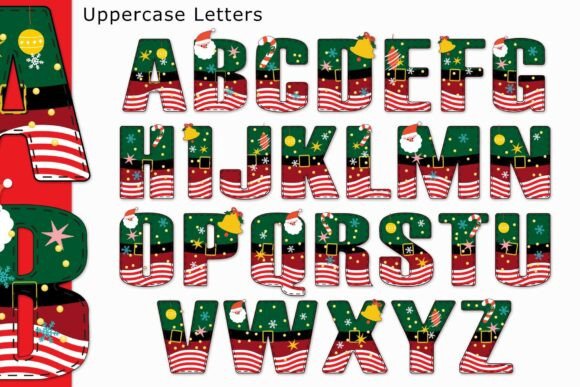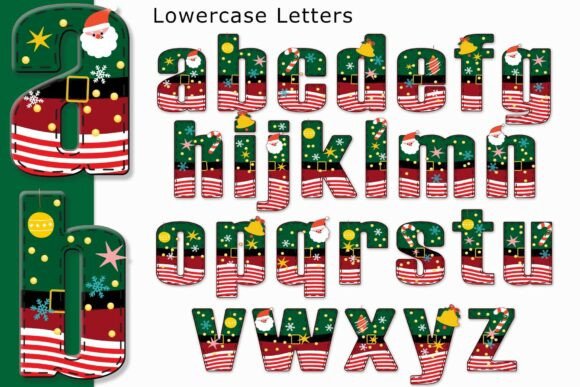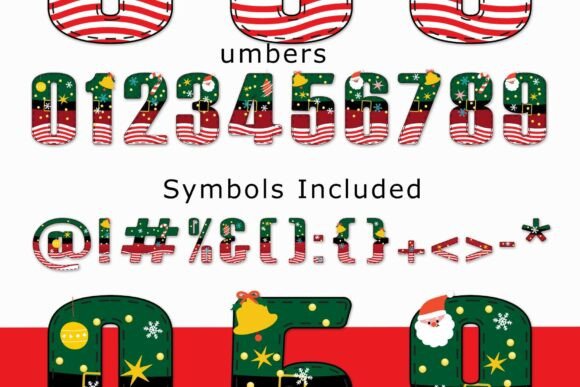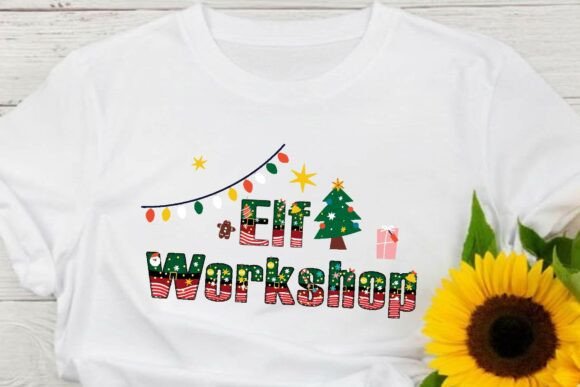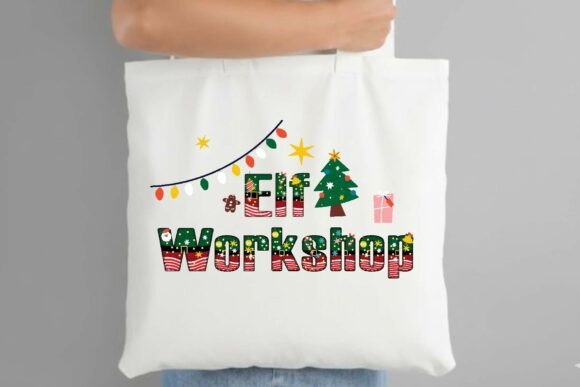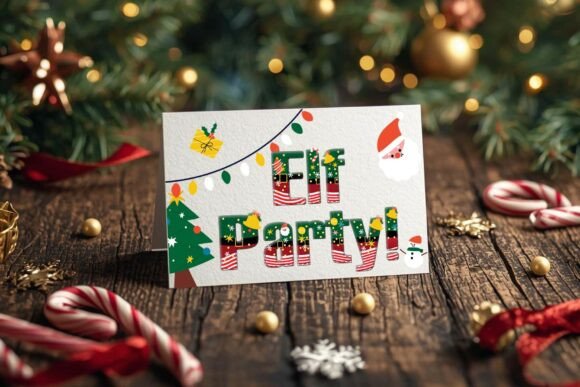
Introduction to Magic Elf Outfit Font Font
Fonts play a crucial role in design, and the Magic Elf Outfit Font font is a typeface that brings both character and versatility to any project. Whether you’re working on a branding project, a website, or a print design, the Magic Elf Outfit Font font offers a unique style that can elevate your work.
Bring the playful magic of Christmas into your designs with Magic Elf Outfit β a festive color font inspired by Santaβs little helpers.
This unique color typeface is decorated with elf-themed patterns, including green coats, red striped pants, bells, presents, candy canes, stars, and snowflakes β perfect for fun holiday creations This typeface transforms every capital letter into a festive, dimensional work of art, inspired by the classic look of a Christmas elfβs attire.
The Magic Elf Outfit Font font is more than just a typeface β it’s a design tool that helps you communicate your message with style and clarity. Its unique character set and versatile design make it suitable for a wide range of applications, from elegant invitations to bold headlines.
With its carefully crafted letterforms and balanced proportions, the Magic Elf Outfit Font font ensures readability and visual appeal across all mediums.
What makes Magic Elf Outfit Font font special?
The Magic Elf Outfit Font font stands out with its unique design, exceptional readability, and versatility across various design applications.